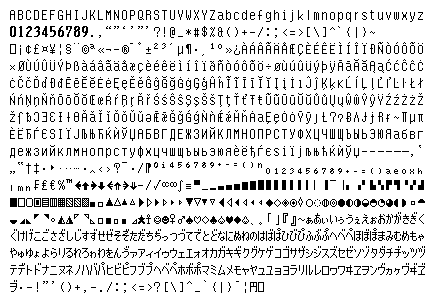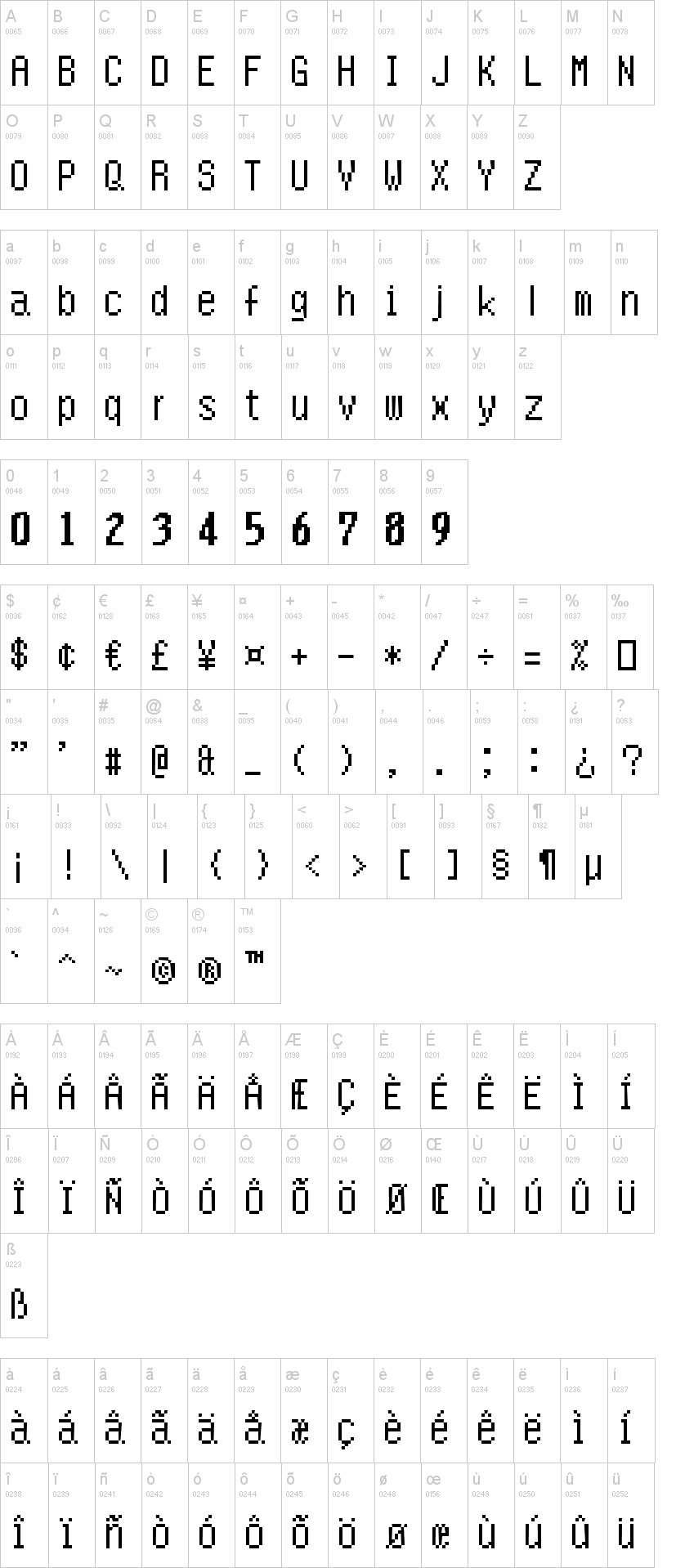
Note of the authorQuarlow - a Super Punch-Out!! pixel font.
Quarlow is an easily readable sans-serif display pixel font recreation based on the original main text font appearing in the SNES video game Super Punch-Out!!, which was developed and released by Nintendo in 1994.
This font includes the full set of Japanese hiragana and katakana characters appearing in the Japanese version of the game as well as in a hidden in-game name entry menu, a full cyrillic base character set, and many additional characters, each one of them designed to match the spirit and style of the original font design.
FEATURES
862 characters total
Monospaced sans-serif display typeface
Complete cyrillic base character set
Complete original Japanese hiragana and katakana character sets
Countless additional special characters, diacritic variants, etc.